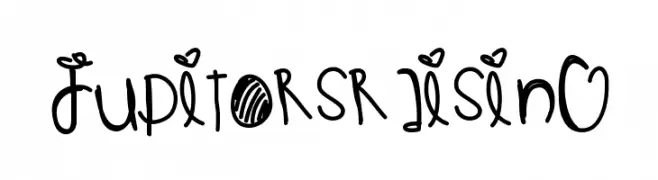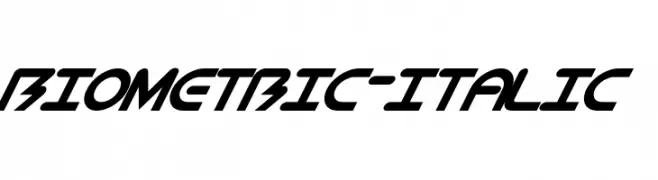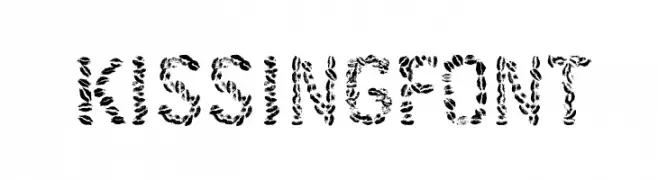
A playful, hand-drawn font with decorative elements and a whimsical style.
A classic blackletter font with ornate and intricate letterforms.
A bold, brush-style font with an energetic and artistic flair.
A bold, italic, and futuristic font with sharp angles and a dynamic style.
A pixelated, retro-style font with a blocky, digital appearance.
A bold, striped stencil-like font with a modern, geometric design.
A decorative font with a textured, playful design.